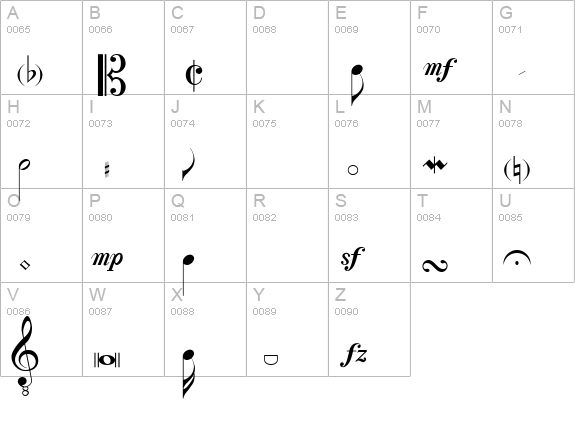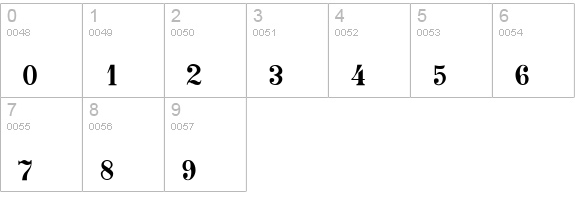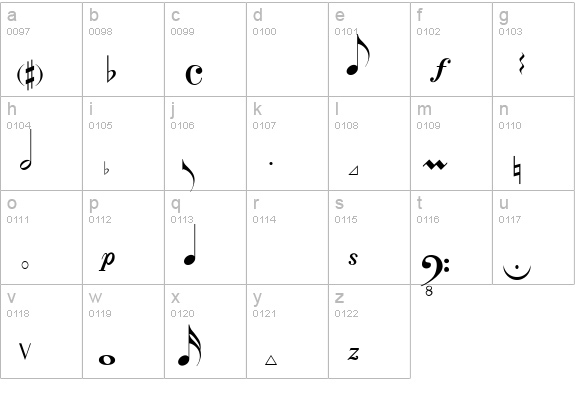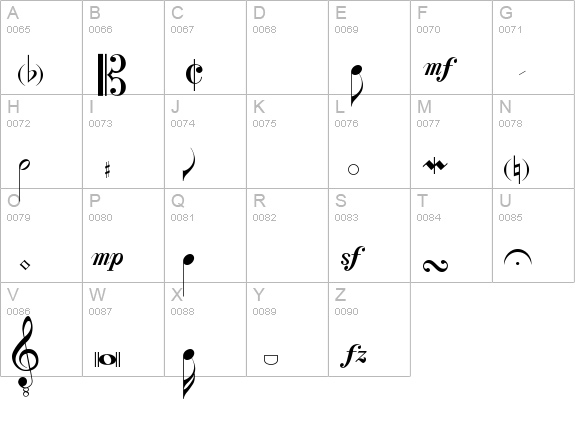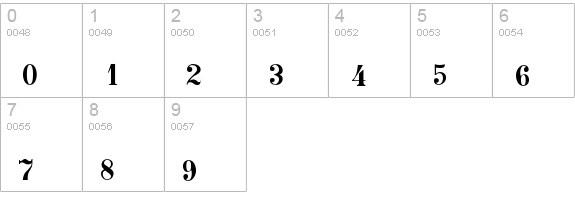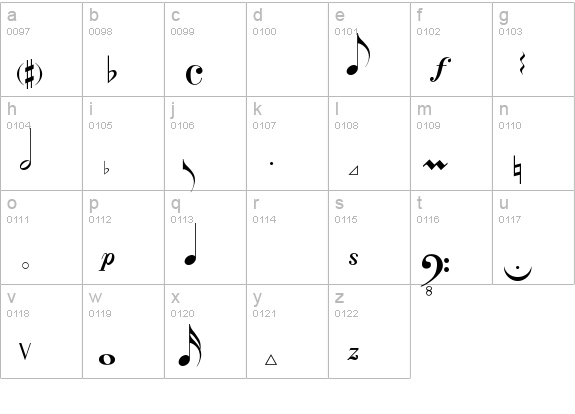
Concerto SSi Font Details
Concerto SSi is a beautifully crafted font that exudes elegance and sophistication. With its sleek lines and classic design, this font is perfect for adding a touch of sophistication to any project. The timeless appeal of Concerto SSi makes it a versatile choice for a variety of design applications, from invitations to branding to editorial design. The best part about Concerto SSi is that it is completely free to download at FontsMarket.com. This means that you can easily access this stunning font and incorporate it into your projects without any cost. Whether you're a designer looking to elevate your work or an enthusiast seeking to enhance your personal projects, Concerto SSi is a fantastic choice that won't break the bank. Download Concerto SSi today at FontsMarket.com and unlock the endless creative possibilities that this font has to offer. Elevate your designs with the timeless beauty of Concerto SSi and make a lasting impression with every project you create.